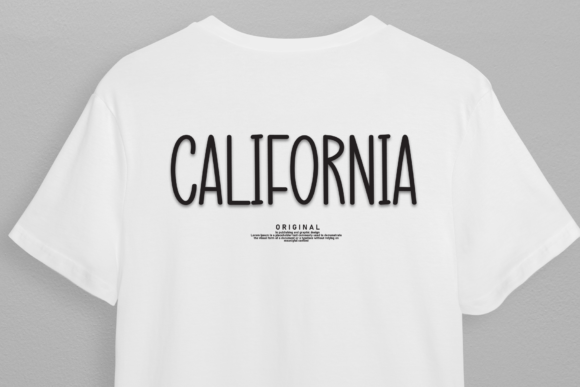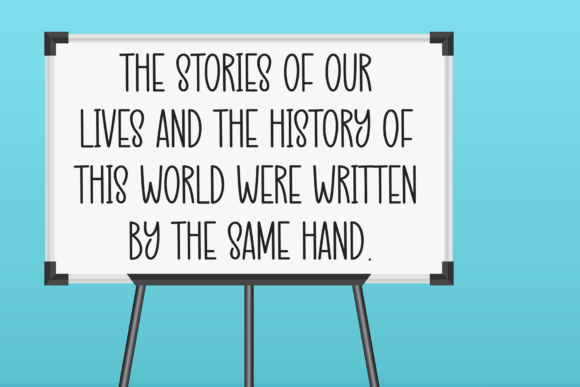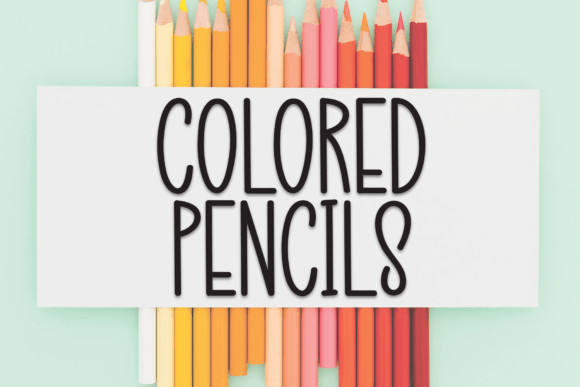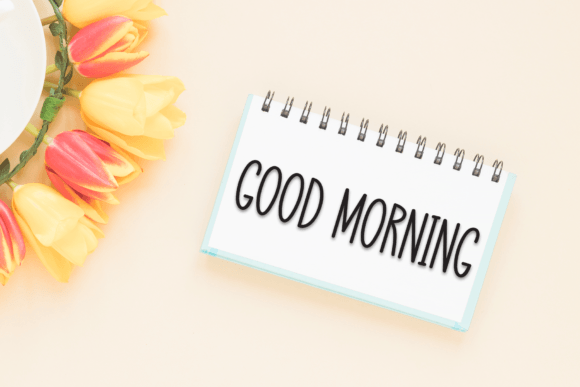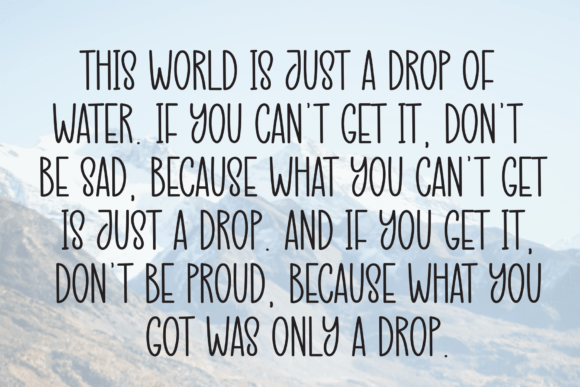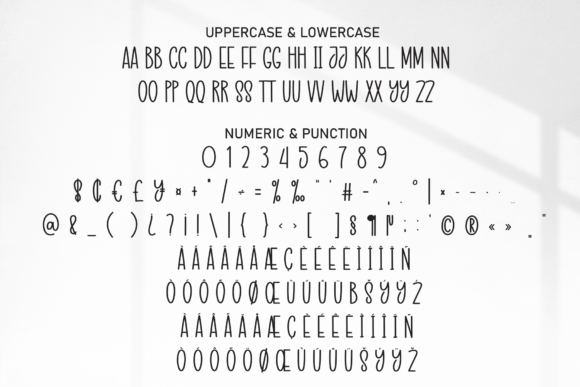
The Grinch Font: A Playful and Whimsical Design Essential
I’ll never forget the time I was working on a holiday-themed project for a client, and I just couldn’t find the right font to capture the playful, mischievous spirit of the season. That’s when I stumbled upon the Grinch font, and it instantly became the star of the show. In this article, I’ll share my love for this unique font, its features, and how to make the most of it in your designs.
Here’s what I’m obsessed with about the Grinch font:
- ✨ Unique, handwritten feel: The Grinch font has a tall, slender style that’s both fun and eye-catching.
- ✅ Playful and whimsical: This font is perfect for projects that require a dash of personality and humor.
- 💡 Versatile: It can be used for a wide range of designs, from holiday-themed projects to everyday creative endeavors.
However, there are a few quirks to keep in mind:
- 🤔 Legibility at small sizes: The Grinch font can be a bit tricky to read at smaller sizes, so make sure to test it thoroughly.
- ⚠️ Limited use in formal designs: This font is best suited for playful, creative projects; it might not be the best fit for more formal or professional designs.
The Story Behind the Grinch Font
The Grinch font was designed with a playful, mischievous spirit in mind. Its creator wanted to craft a font that captured the whimsical essence of Dr. Seuss’s beloved character, the Grinch. With its tall, slender letters and energetic vibe, this font is sure to bring a dash of fun to any design.
| Font Name | Grinch Font |
| Author | Creativewhitee |
| What type of designs is the Grinch font best suited for? | The Grinch font is perfect for playful, creative projects, such as holiday-themed designs, DIY crafts, and fun social media graphics. |
| Is the Grinch font available in different weights or styles? | Some versions of the Grinch font might offer variations in weight or style; check with the font’s creator or distributor for more information. |